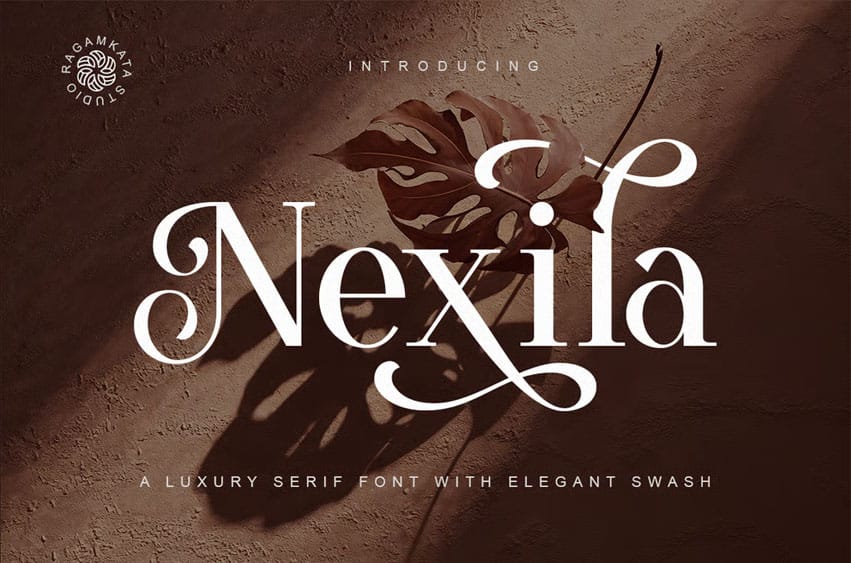
Nexila Font is a luxury serif font with elegant swash alternates. It has both modern and classy elements. Create bold, gorgeous headlines and elegant designs with a unique swash flair.
Nexila’s contrasting lines and curved terminals give a sleek, elegant look to logos, holiday cards, wedding invitations, quotes, advertisements, and more
- Stylish Alternates